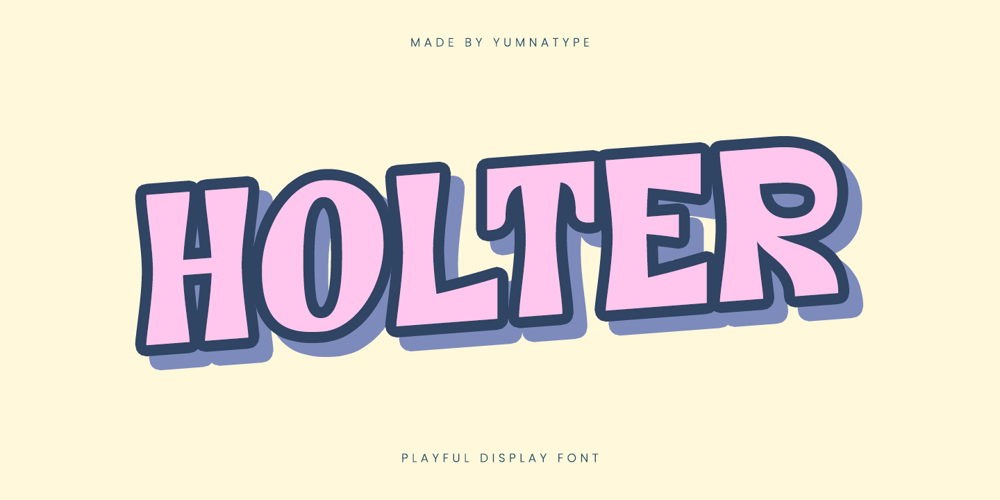
Holter Font Family was designed by Donis Miftahudin and published by Yumna Type. Holter contains 1 styles and family package options. Holter is a captivating display font characterized by its all-caps design, very thick weight, and quite rounded shapes. The low contrast ensures a smooth and cohesive appearance, giving Holter a distinctive presence. With its combination of robust thickness and rounded forms, Holter brings a sense of modernity and approachability to any design, making a bold statement while maintaining a friendly vibe. In addition, enjoy the features here.Features: Multilingual Supports PUA Encoded Numerals and Punctuations Holter fits in headlines, logos, posters, flyers, branding materials, print media, editorial layouts, and many more designs. Find out more ways to use this font by taking a look at the font preview.Thanks for purchasing our fonts. Hopefully, you have a great time using our font. Feel free to contact us anytime for further information or when you have trouble with the font. Thanks a lot and happy designing.